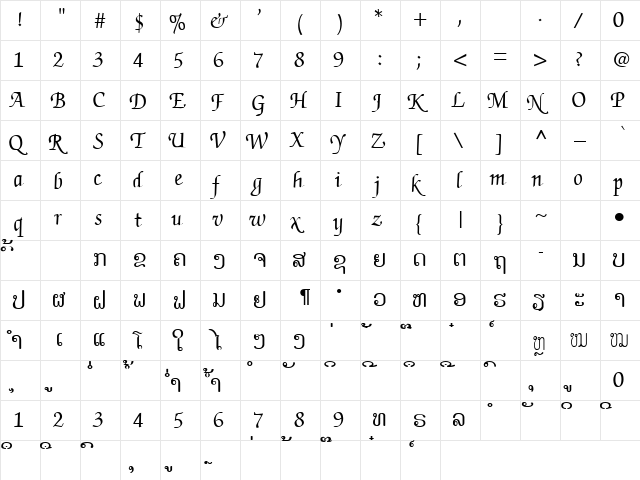
Alice5 Lao Regular
Design Context for Alice5 Lao Typeface
Alice5 Lao is a composed and adaptable typeface that performs quietly and consistently across a wide range of design contexts.